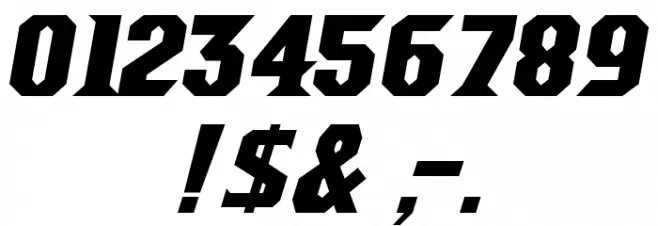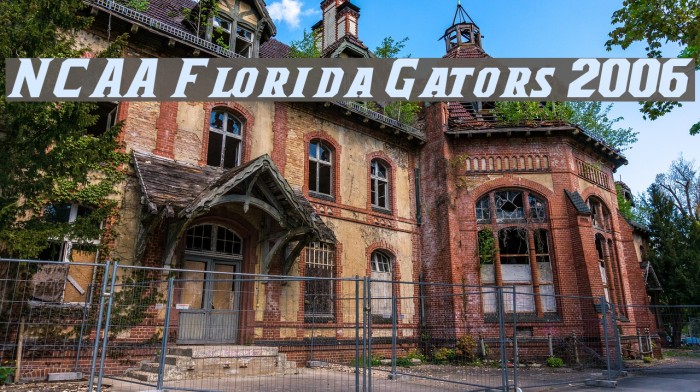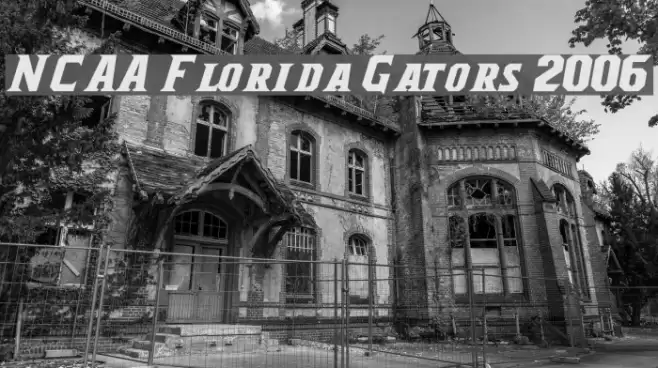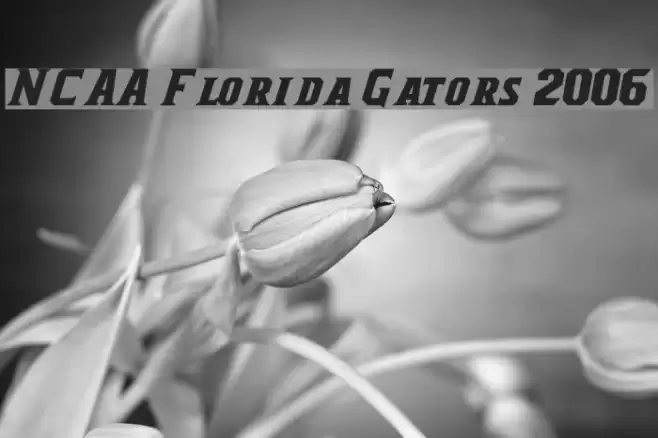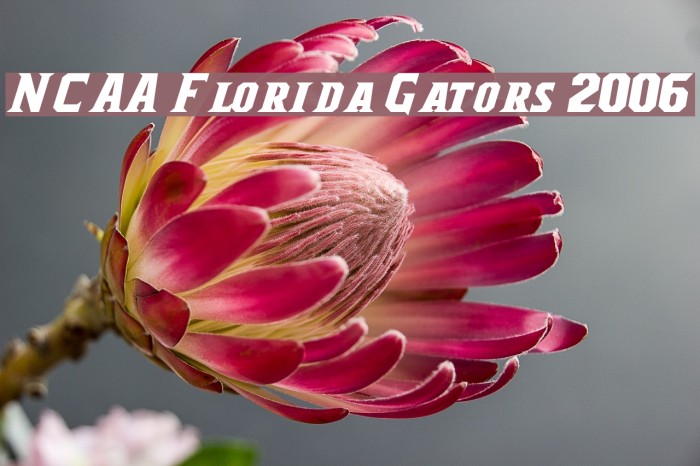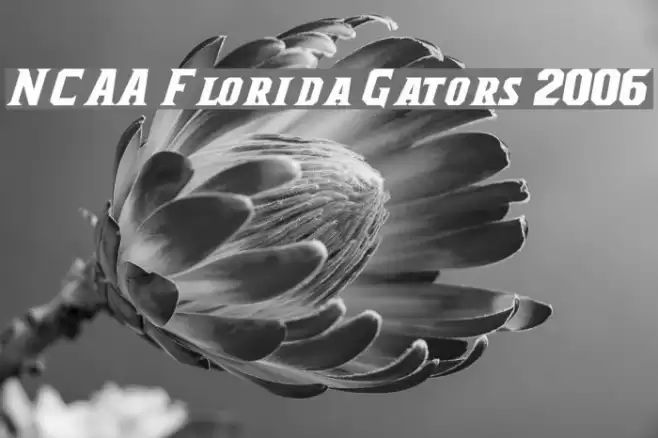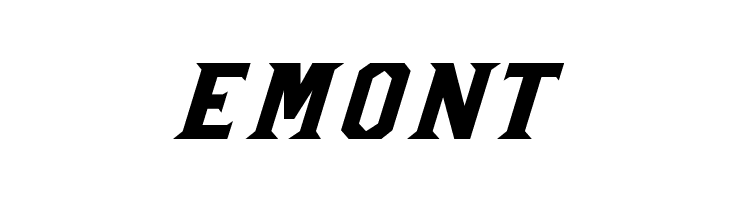
NCAA Florida Gators 2006 Font
NCAA Florida Gators 2006 Description
This font features a bold and dynamic style with a strong, angular design that conveys a sense of movement and energy. The uppercase letters are particularly striking, with sharp edges and a slightly italicized slant that adds to the overall sense of speed and motion. The numbers and special characters maintain this bold aesthetic, making them stand out prominently. The font's design is reminiscent of sports team branding, with a focus on strength and impact. Its unique style makes it suitable for projects that require a bold statement or a sense of athleticism.
| Use Case | Logos, Headlines |
| Proposed Projects | Ideal for sports team branding, athletic event posters, and dynamic logo designs. |